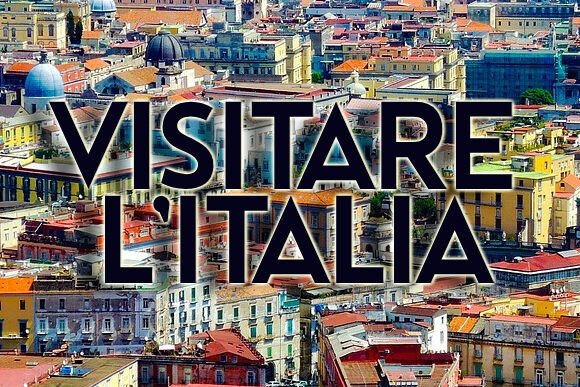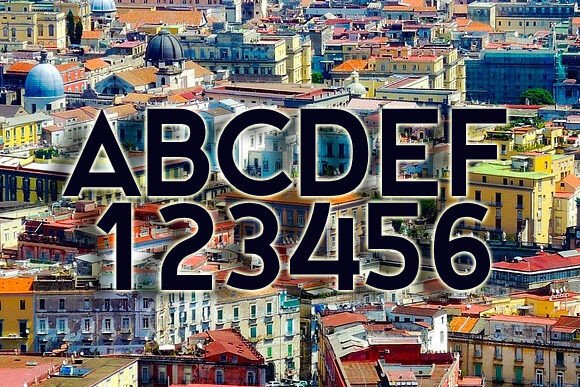
Introduction to Napoli Font
Remember that moment when you finally see your creative project come to life? The rush of excitement as you watch your ideas transform into a beautiful design? For designers, it’s a moment that never gets old, and it’s exactly what makes our job so rewarding. But to get to that moment, we need the right tools, and that’s where the Napoli Font comes in – a stylish Sans Serif font that’s perfect for giving your designs a professional touch.
As a valuable design resource, the Napoli Font is a must-have for any creative project. Its clean and modern look makes it ideal for use on posters, flyers, and even t-shirts. With its high-quality design and transparent background, this font is sure to make your designs stand out from the crowd. And the best part? It’s available for free download, making it an accessible resource for designers of all levels.
Napoli Font Key Features
- High-quality, professional design suitable for creative projects
- Transparent background, ideal for graphic design, web design, and digital art
- Includes a comprehensive character set, covering Latin and Cyrillic alphabets, with over 300 glyphs
- Designed to work well with various font sizes, from small captions to large headings, offering flexibility in creative projects
Honest Review: Napoli Font
I recently had the opportunity to work with the Napoli Font, a stylish and elegant font designed for creative projects. I must say, it’s been a great addition to my design resource collection.
Here’s what works well: ✨ High-quality typography, ✨ beautiful curves, and ✨ a transparent background that makes it easy to work with. The font is perfect for designing logos, headings, and other text-based elements in my creative project.
Here are some of its key features:
- High-quality typography with beautiful curves
- Suitable for creative projects such as logos, headings, and more
However, I do have a few limitations to note: ⚠️ Limited language support, ⚠️ not ideal for small text sizes, and ⚠️ some users may find it too ornate.
Overall, I’m quite impressed with the Napoli Font. Its high-quality design and transparent background make it a great addition to any designer’s toolkit. I highly recommend it for creative projects that require a stylish and elegant font.
The Napoli Font is perfect for a variety of creative projects, including logos, business cards, and brochures. Its high-quality design and transparent background make it easy to use in layered designs. Tips for getting the most out of the Napoli Font include experimenting with different font sizes and styles, and using it in combination with other design elements to create a unique look.